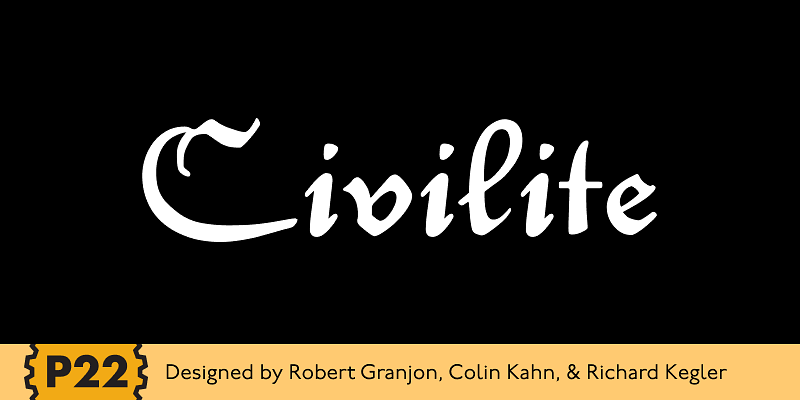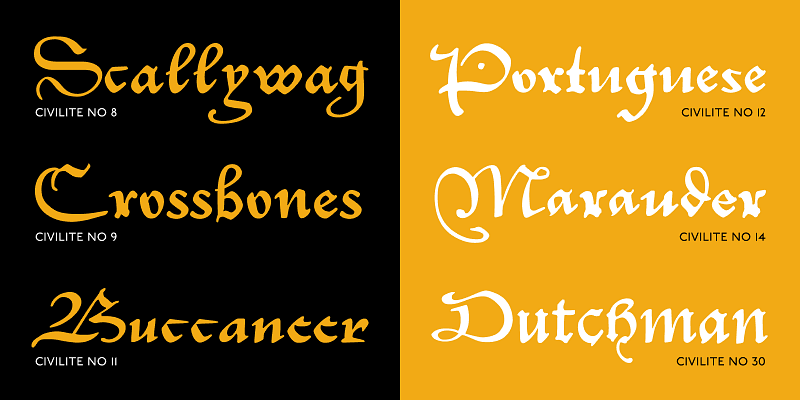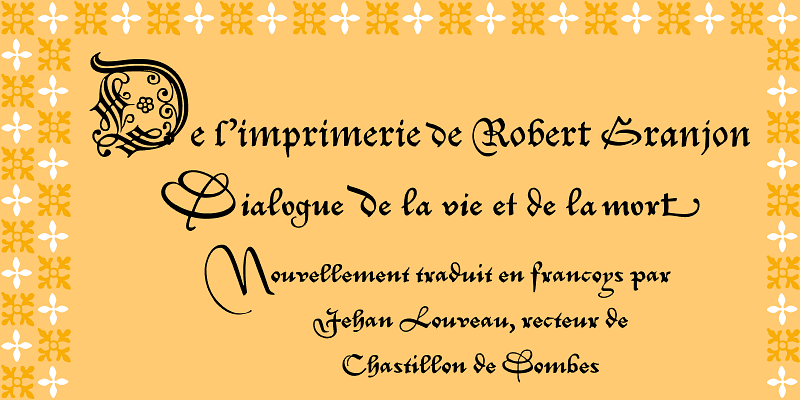
P22 Civilite is a historic revival. It is a non-connecting upright handwriting script based on 16th-century sources. It has a lineage from Robert Granjon in France and early Dutch type specimens from the Enschede and Sons Foundry. This family includes the 6 basic Dutch versions of Civilite in both “historical” and “modern” styles. Use it for pirate-themed parties, period-specific exhibits, archival editions, fantasy novels, custom stationery, and postmodern branding.